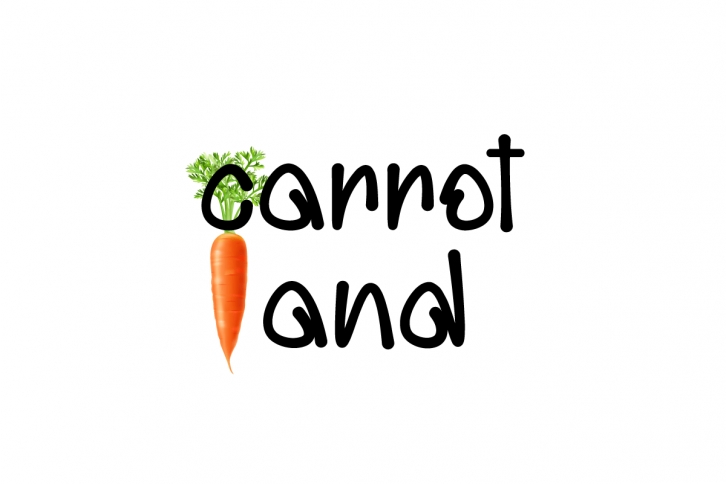
Carrot Land is a cool and fun handwritten font. This typeface is perfect for logos, wedding invitations, quotes, advertisements, print, magazines, and more! It is designed with cuteness and interesting lines, and it will definitely make your designs stand out more than before.